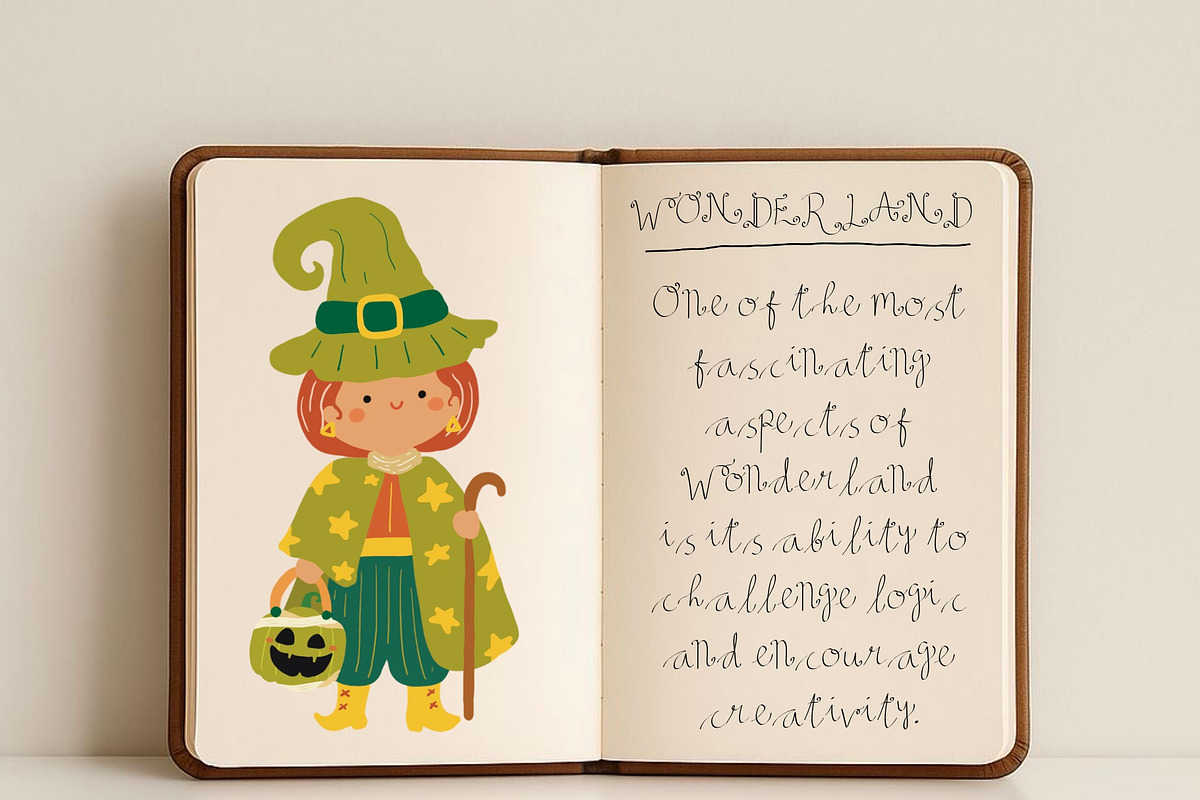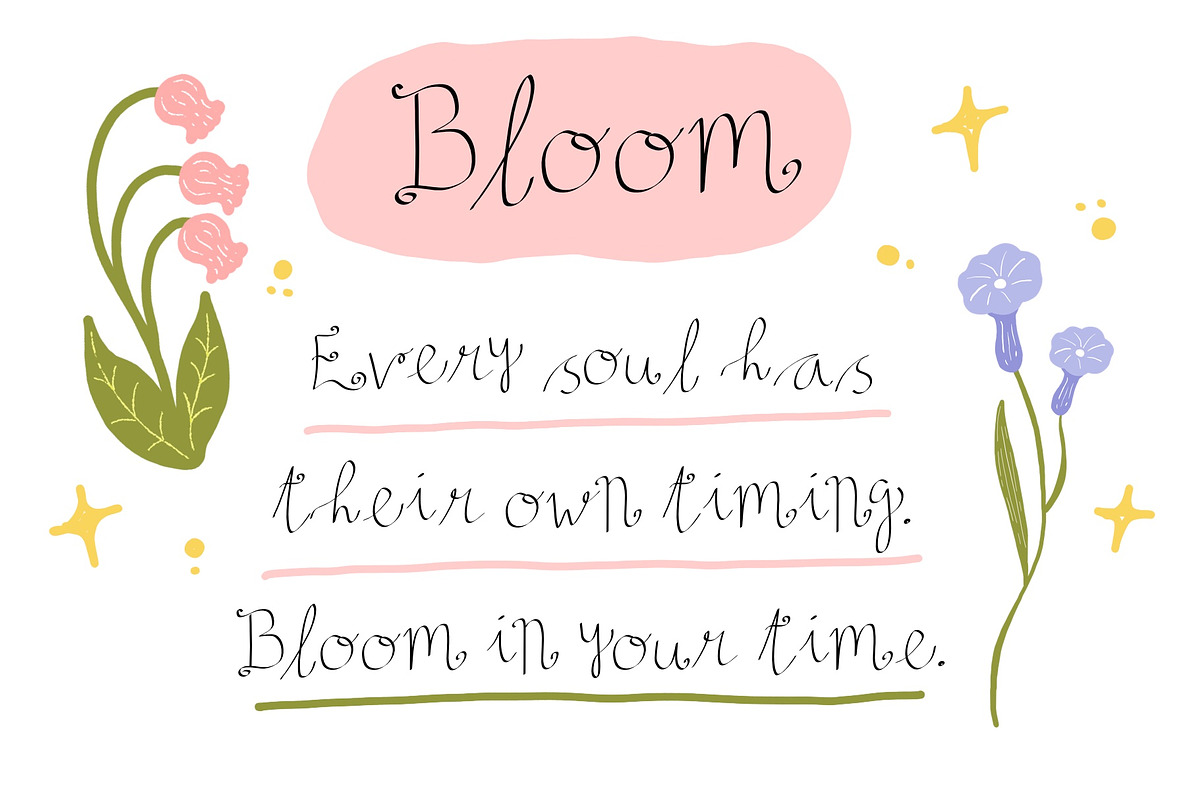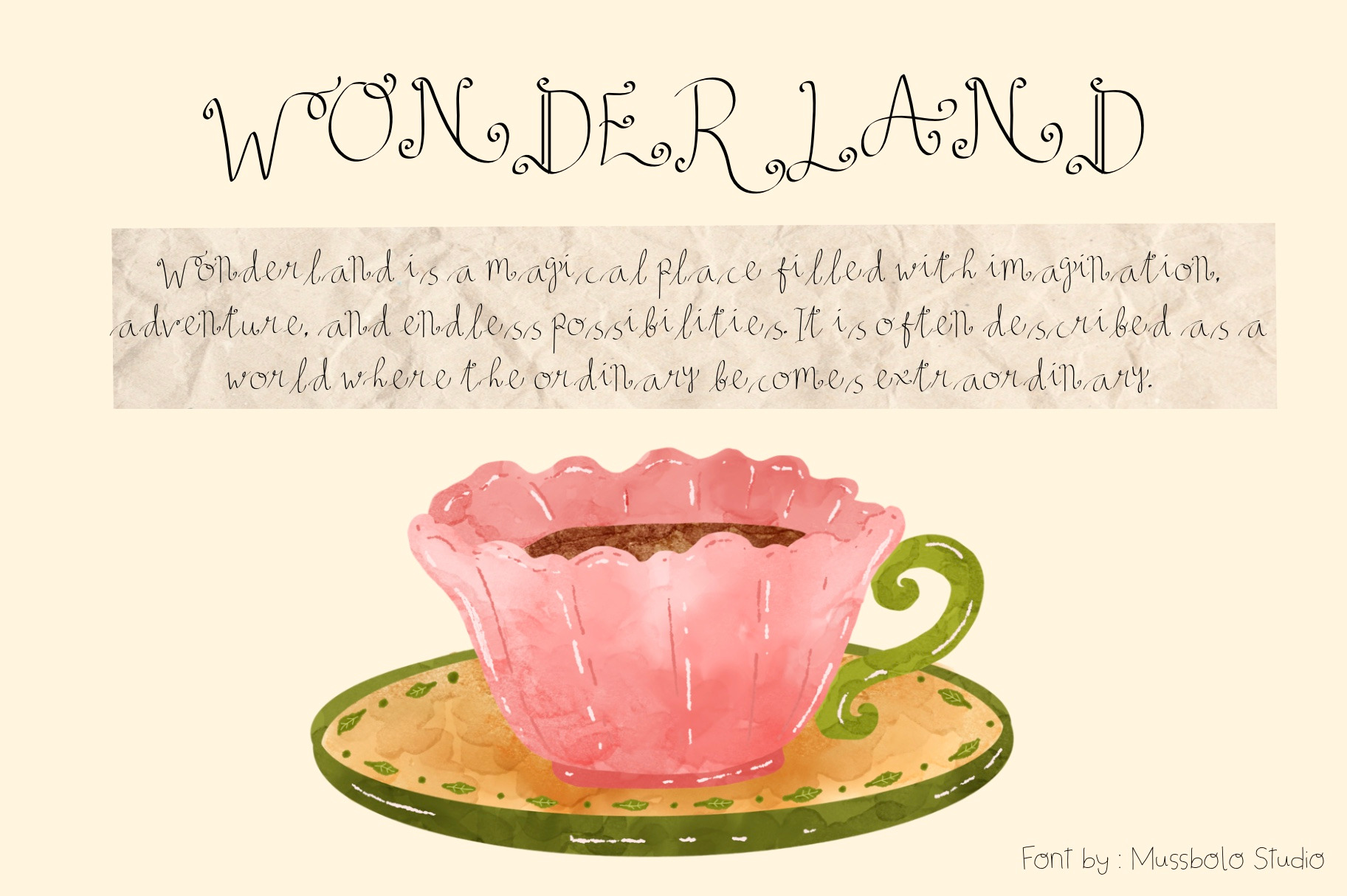
Whimsical handwritten font - curly
Wonderland font by Mussbolo Studio is a thin and whimsical handwritten font with a curly flow and playful personality.